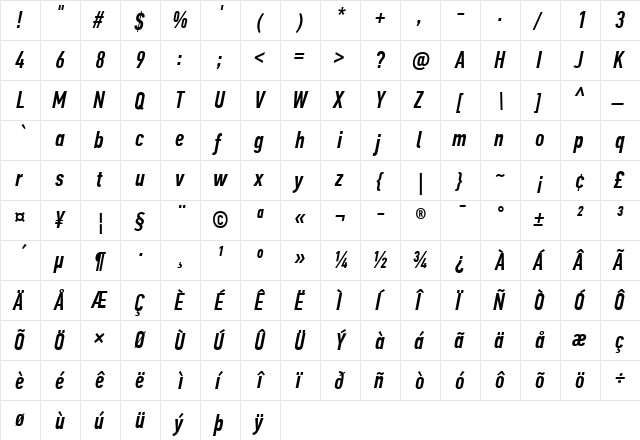
PF Din Text Comp Pro Medium Italic
| Foundry | Parachute蠗orldwide |
| Designer | Panos Vassiliou |
Design Context for PF Din Text Comp Pro Typeface
PF Din Text Comp Pro takes a measured approach to typography — its balanced proportions and neutral character make it a reliable workhorse for both digital and print work. The slanted form adds forward momentum and visual energy.
Pro Tip: Use PF Din Text Comp Pro for emphasis, pull quotes, and subheadings where its slanted energy can add rhythm to the layout.